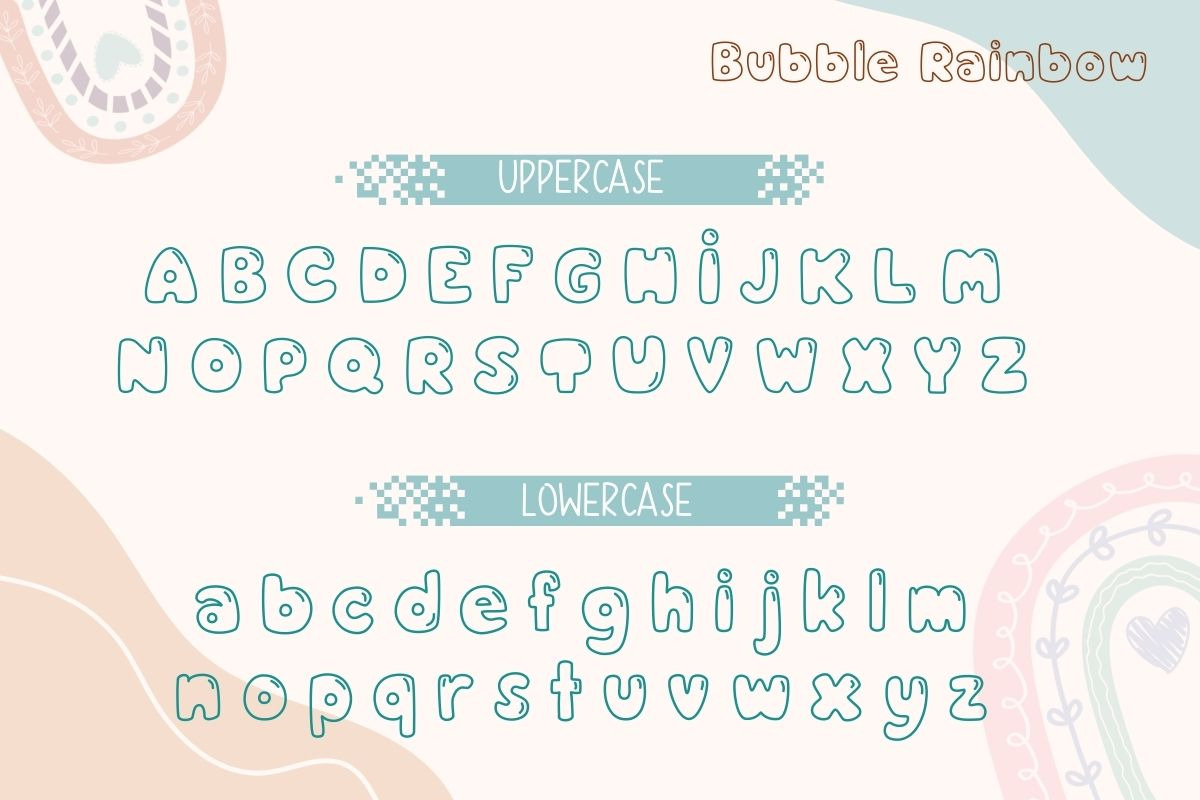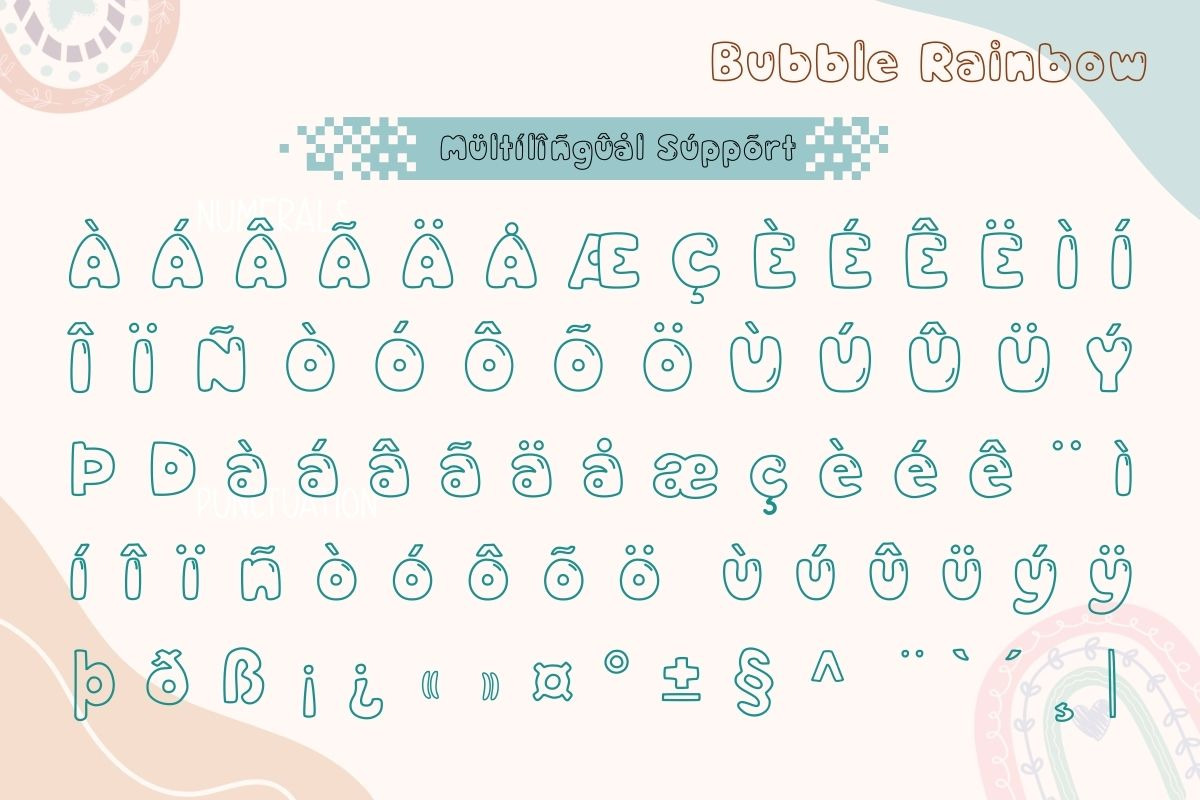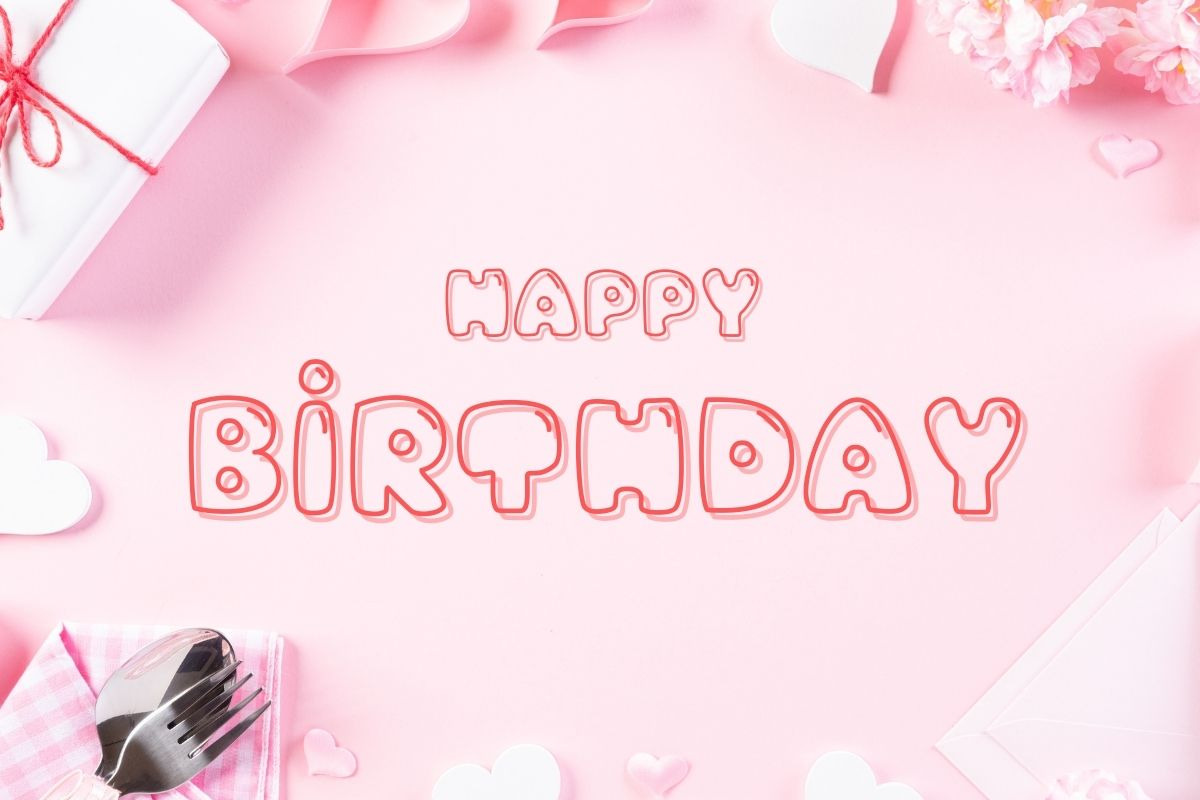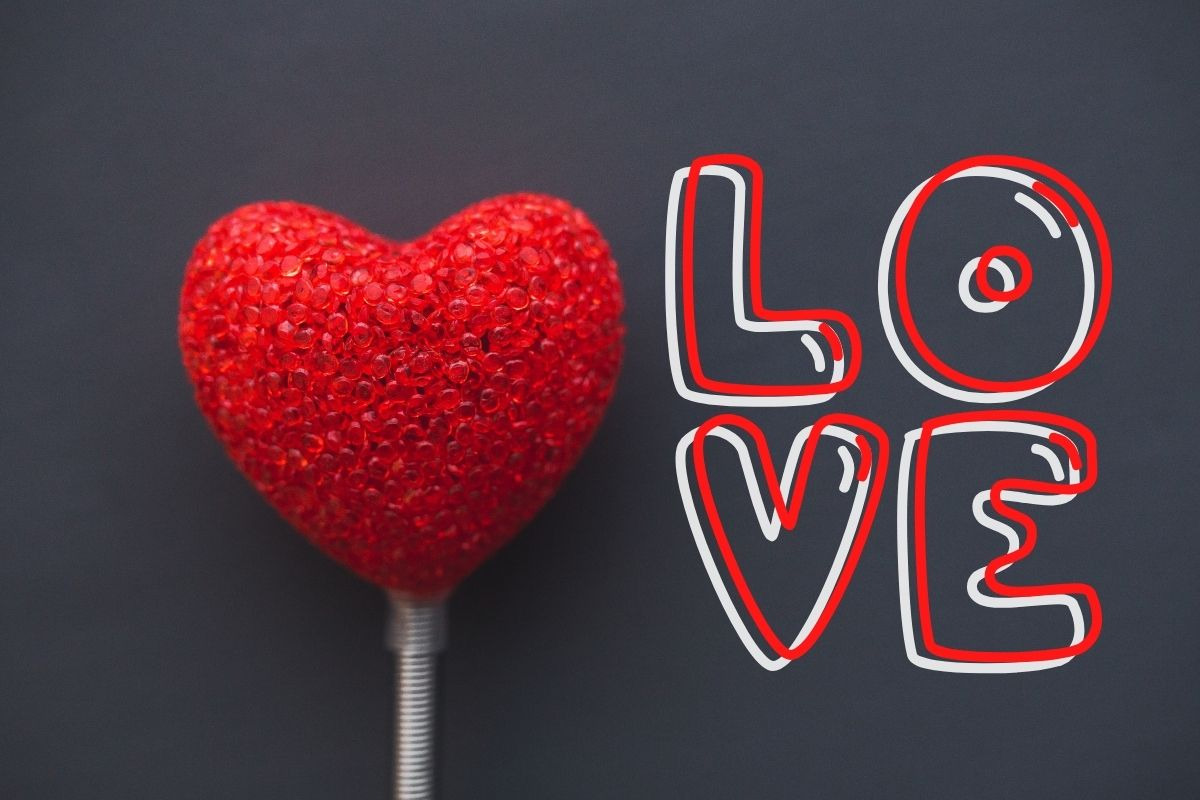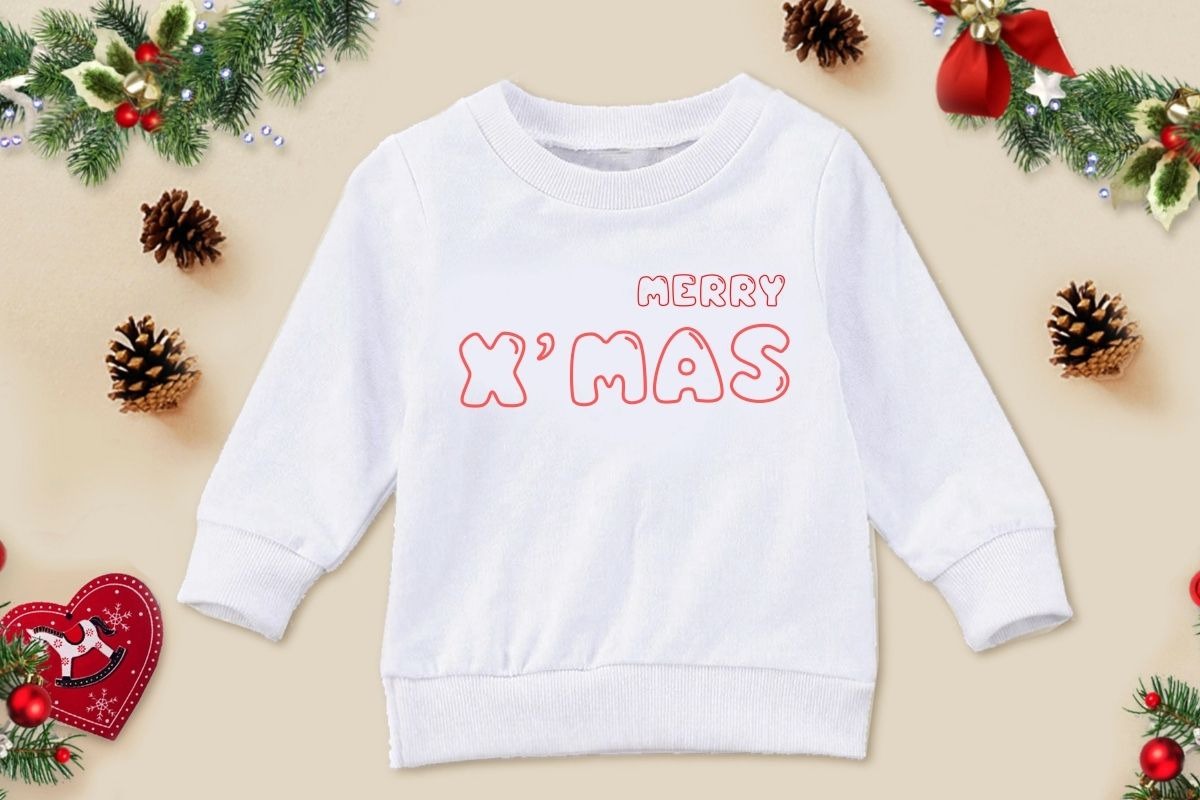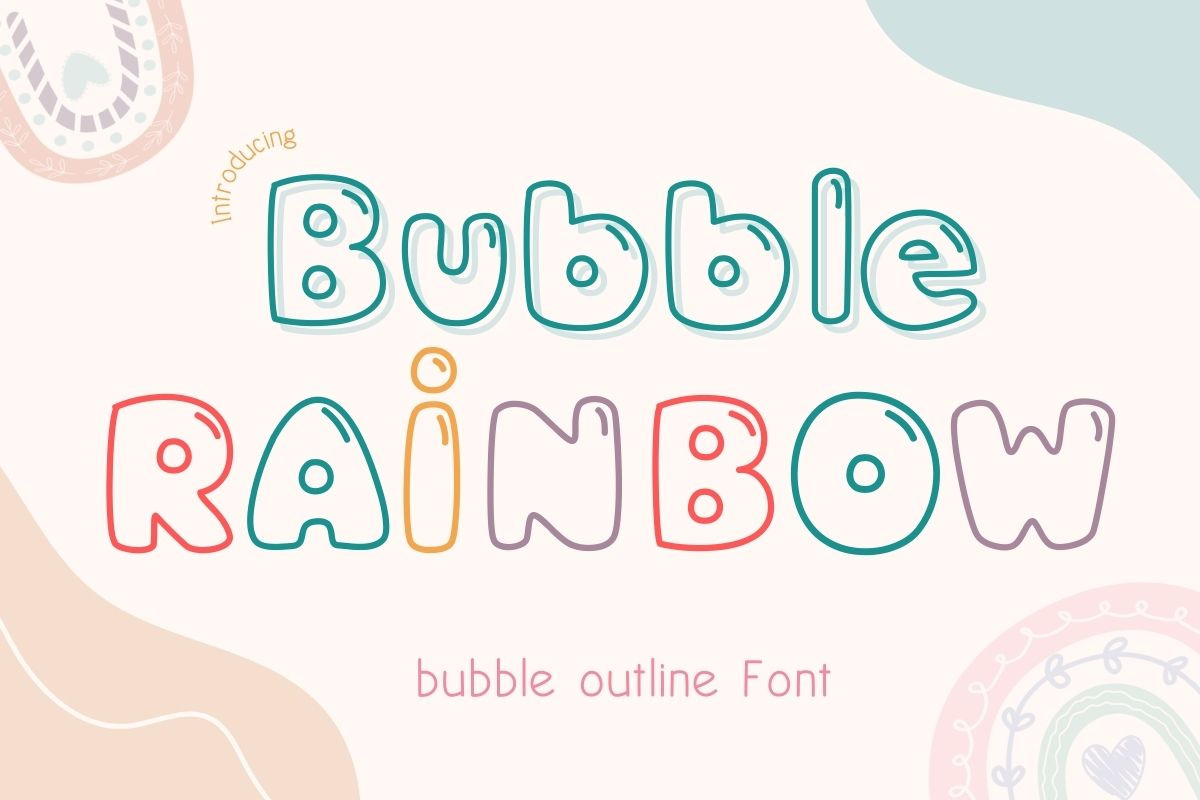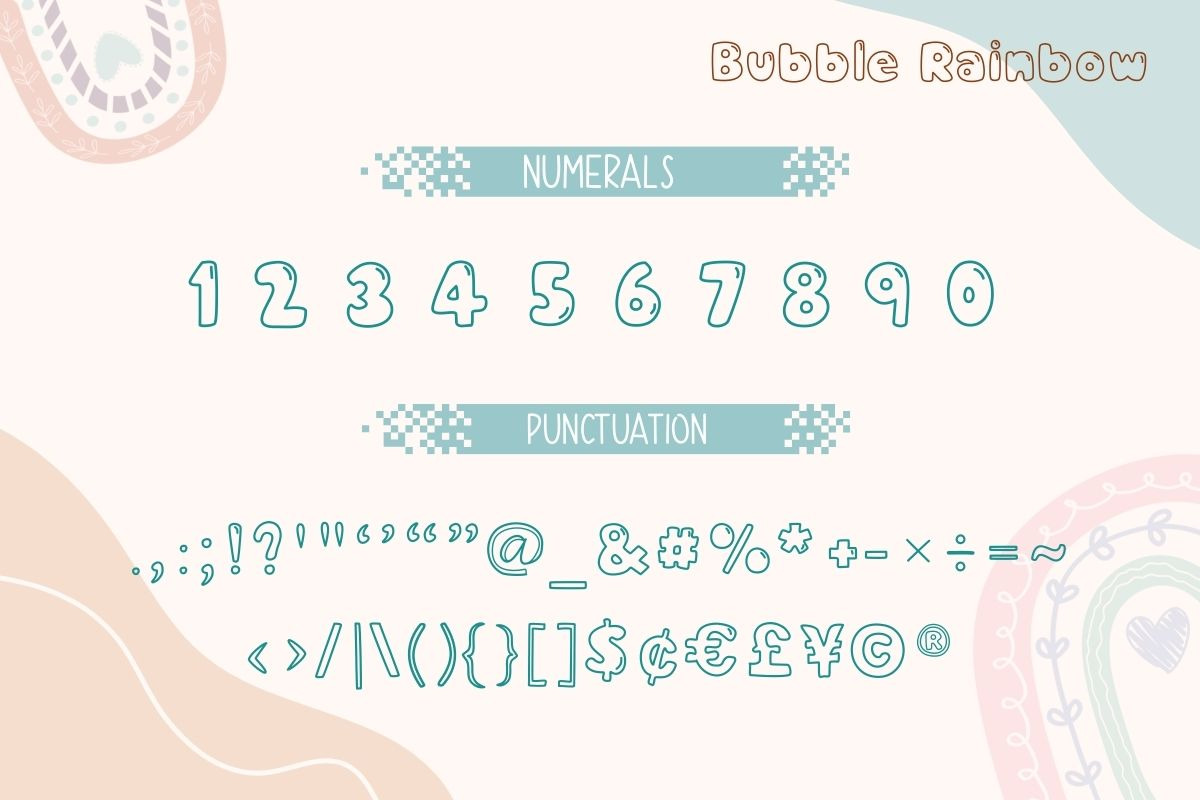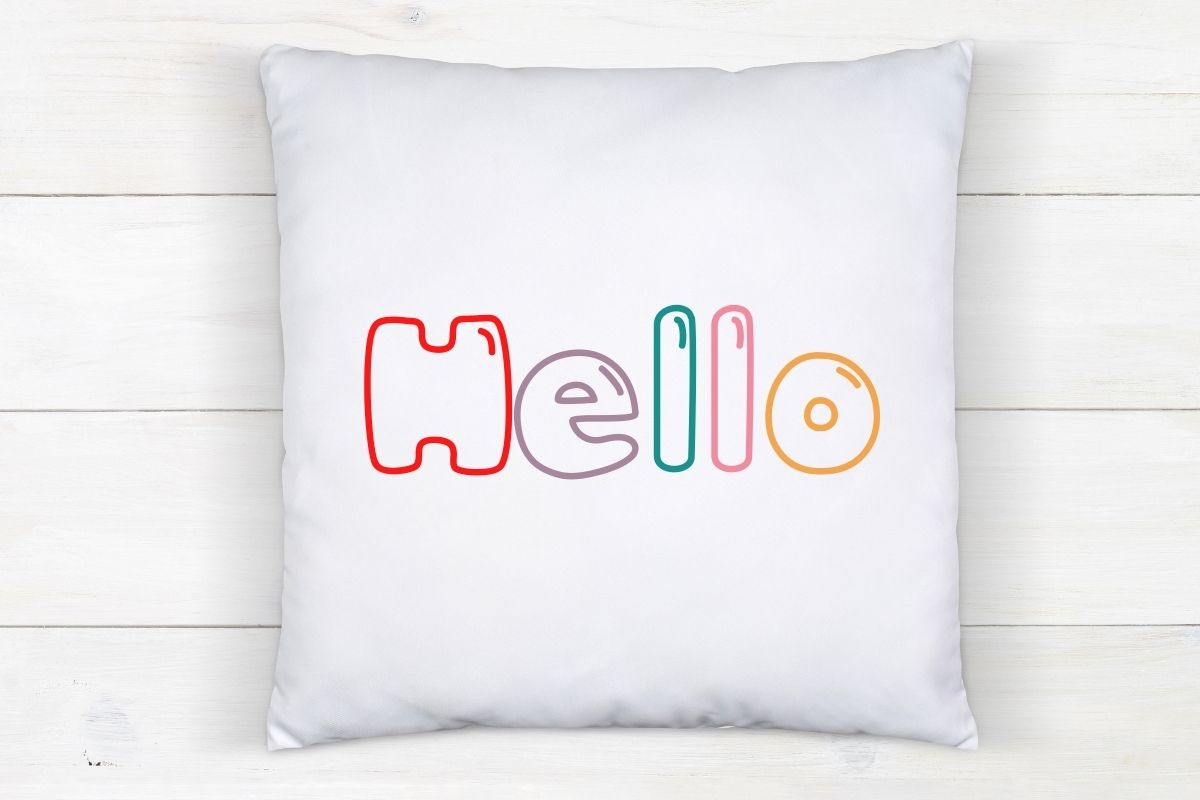
Bubble Rainbow - Outline Font
Bubble Rainbow, a fun and playful bubble outline font that’s full of personality and joy! Its rounded, bubbly style and colorful rainbow vibe make it a perfect choice for kids’ projects, birthday invitations, t-shirts, stickers, and holiday crafts.
Bubble Rainbow comes with uppercase & lowercase letters, numbers, punctuation, and multilingual support, giving you the flexibility to use it across both print and digital designs. Whether you’re creating party decorations, posters, greeting cards, or apparel, this font will make your designs pop with happiness and charm.